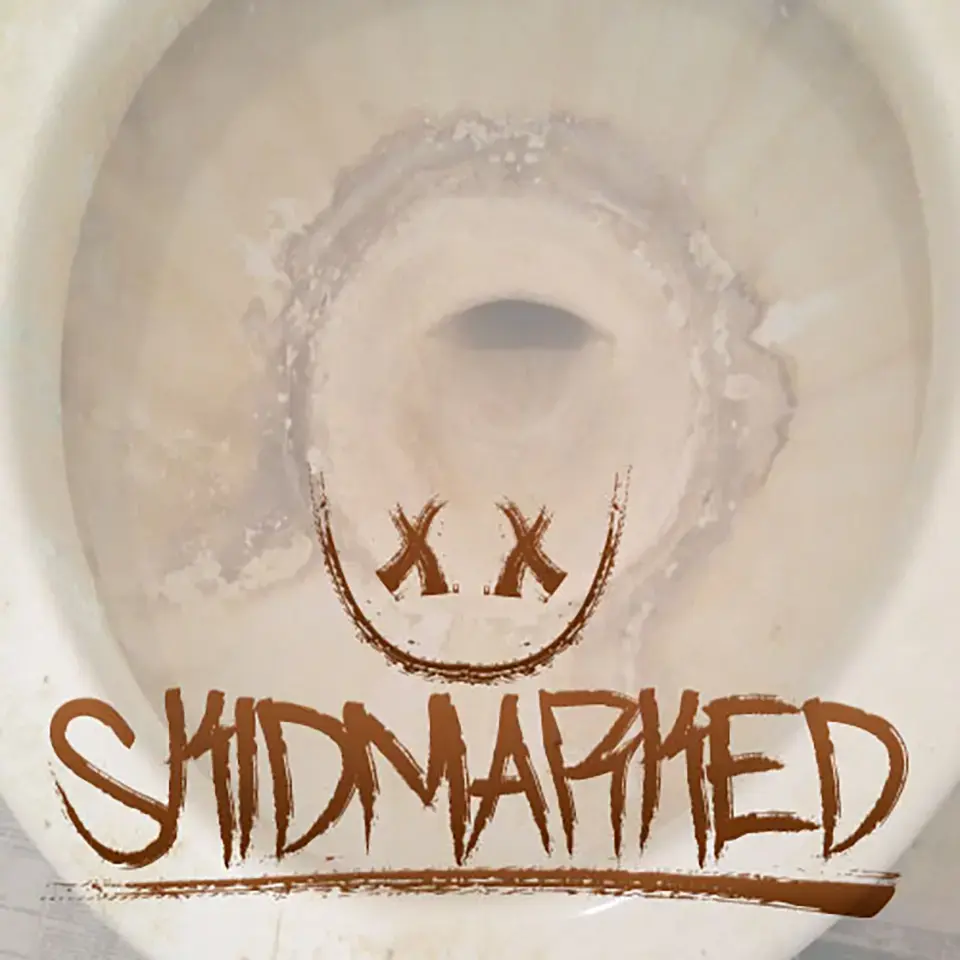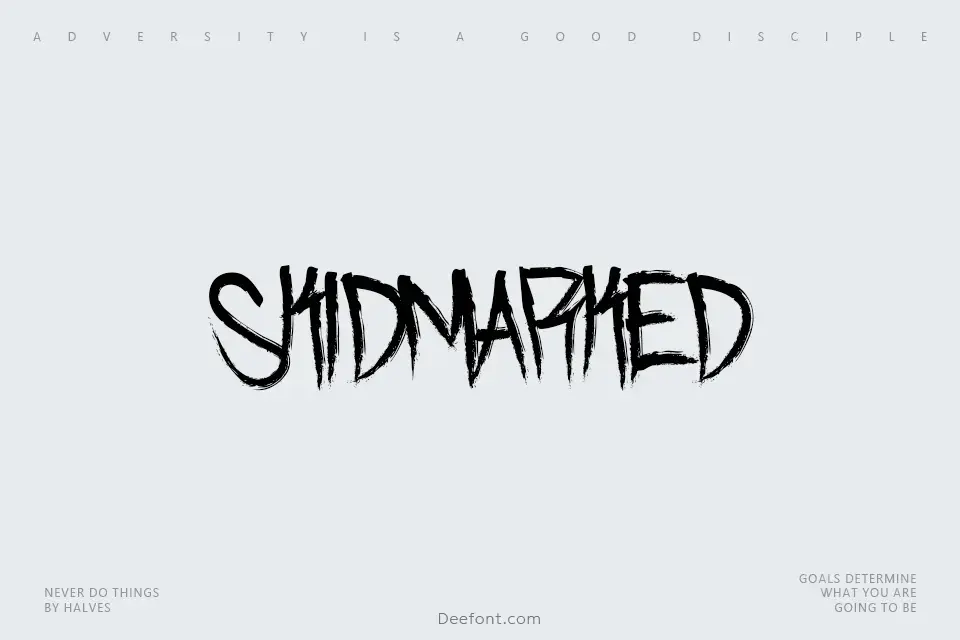
Skidmarked Font
Skidmarked is a bold distressed display font with heavily fragmented, grungy letterforms that evoke decay and urban rawness. Its jagged edges and eroded character design make it ideal for creating striking horror-themed posters, Halloween invitations, music album covers, and edgy merchandise designs. The font’s aggressive visual texture adds immediate impact to headlines and titles seeking a rebellious, dangerous aesthetic suitable for graffiti-inspired graphics, film title sequences, and punk-rock branding applications.